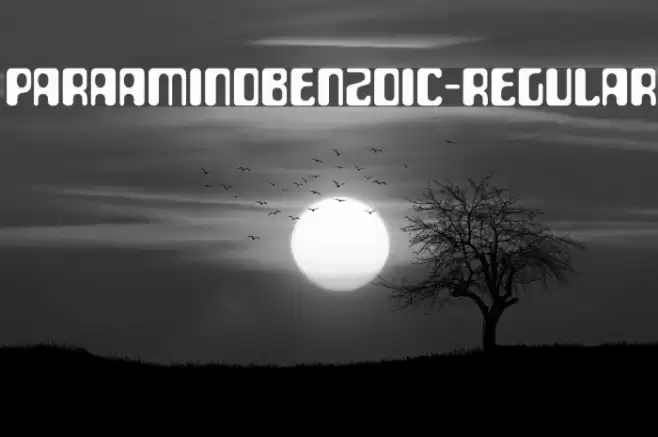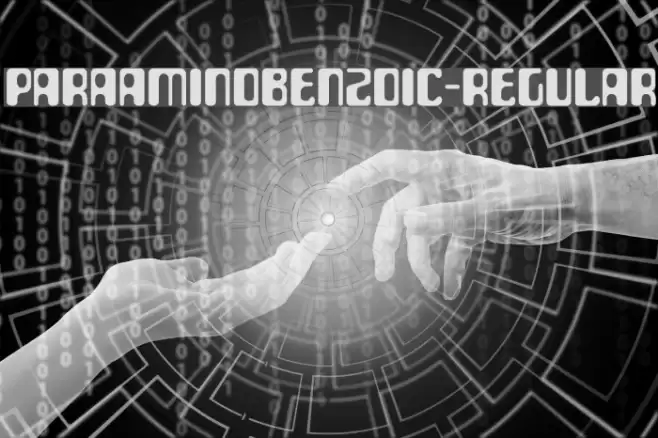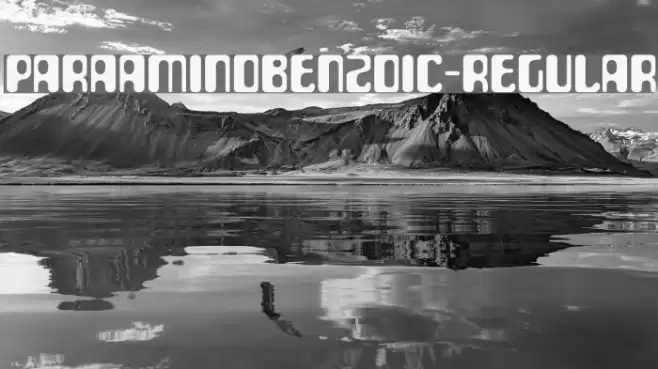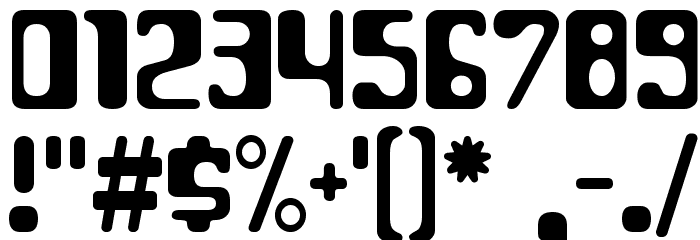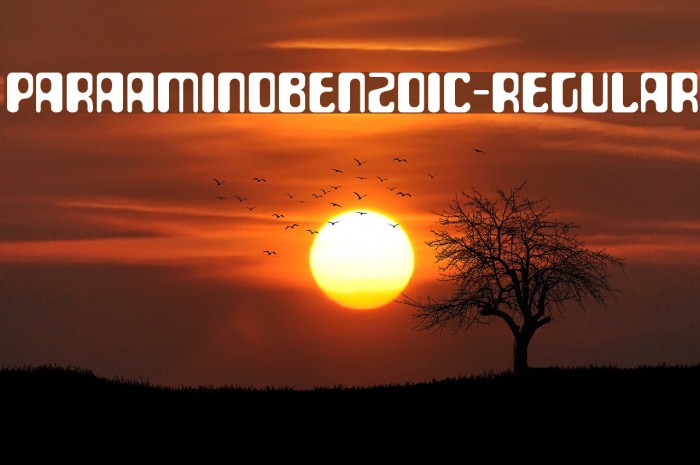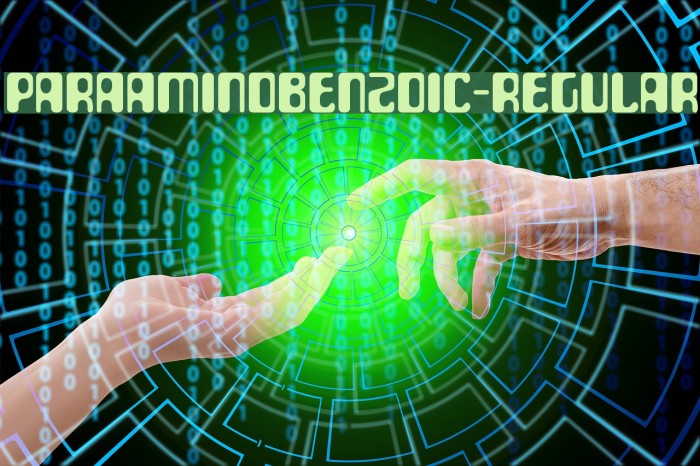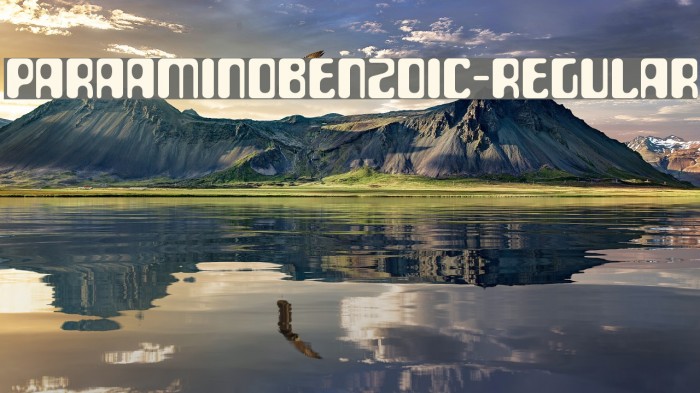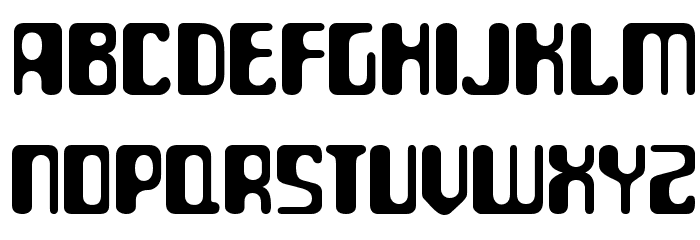
ParaAminobenzoic-Regular Font
ParaAminobenzoic-Regular Description
This font features a bold and rounded style with a modern and playful aesthetic. The characters are uniformly thick, providing a consistent and strong visual impact. The rounded edges give it a friendly and approachable feel, making it suitable for a variety of design contexts. The uppercase and lowercase letters maintain a cohesive look, while the numerals and special characters complement the overall design with their rounded forms. The font's unique style makes it stand out, offering a contemporary twist on traditional bold fonts.
A bold, rounded font with a modern and playful aesthetic from Uncategorized fonts.
- Proposed Projects: Ideal for branding, packaging, children's books, and playful advertising campaigns.